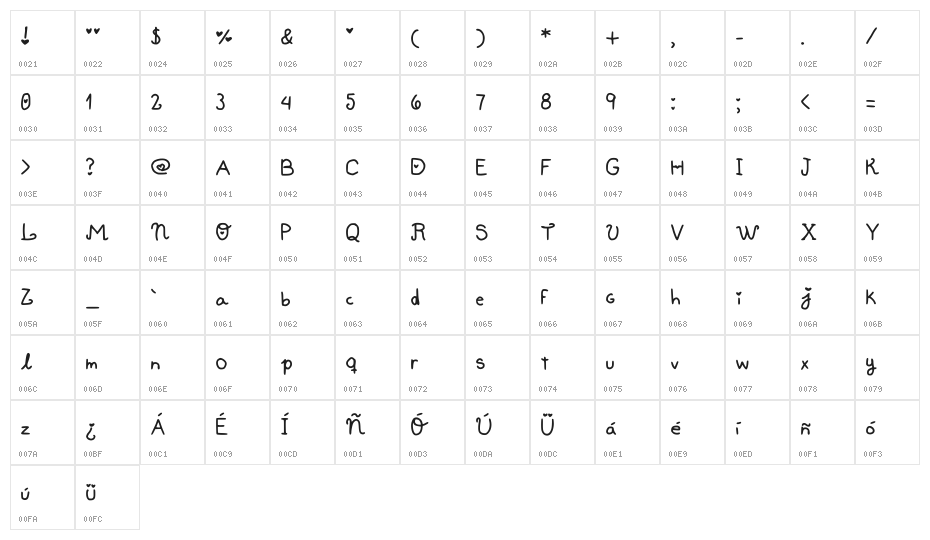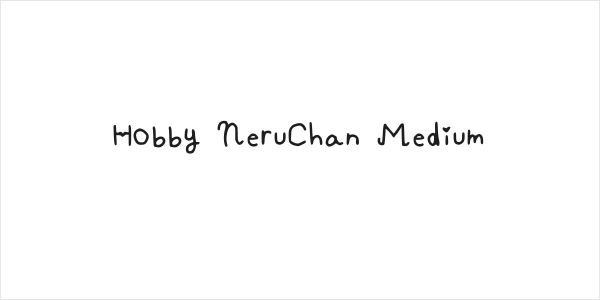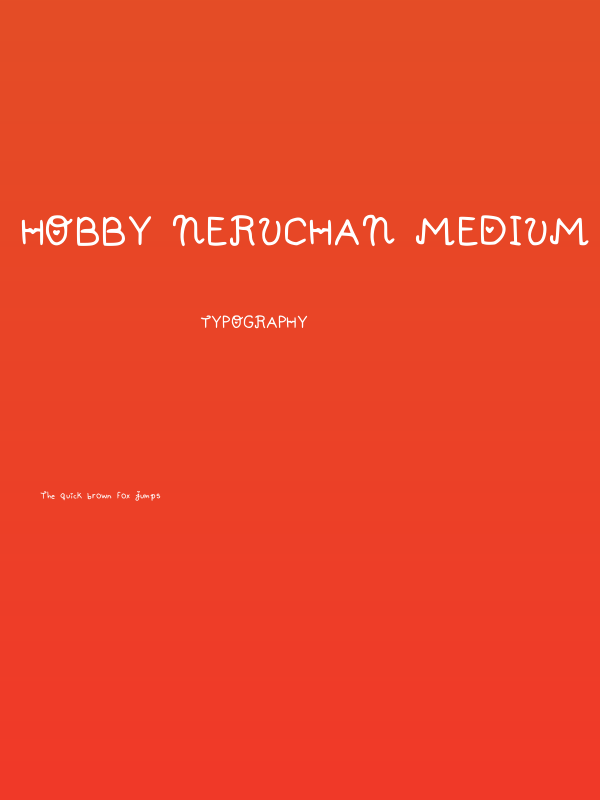
Hobby NeruChan Medium Font
Hobby NeruChan Medium Description
This playful and whimsical font features a handwritten style with a charming and friendly appearance. The characters are slightly irregular, adding to its casual and approachable feel. The uppercase letters are bold and rounded, while the lowercase letters maintain a consistent flow with subtle variations. The numbers are clear and easy to read, matching the overall style of the alphabet. Special characters include hearts and other decorative elements, enhancing its playful nature. This font is ideal for projects that require a personal touch or a fun, informal vibe.
| Proposed Projects | Ideal for children's books, greeting cards, playful branding, and social media graphics. |